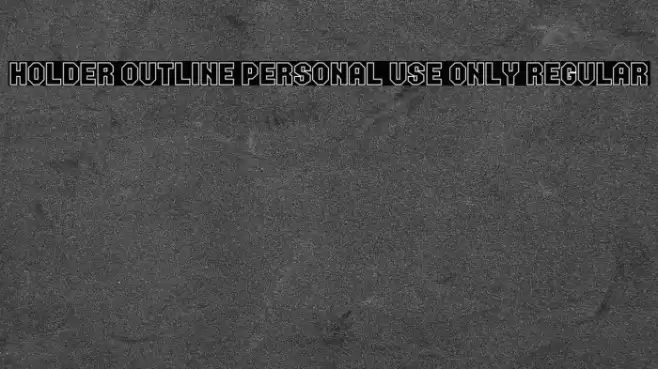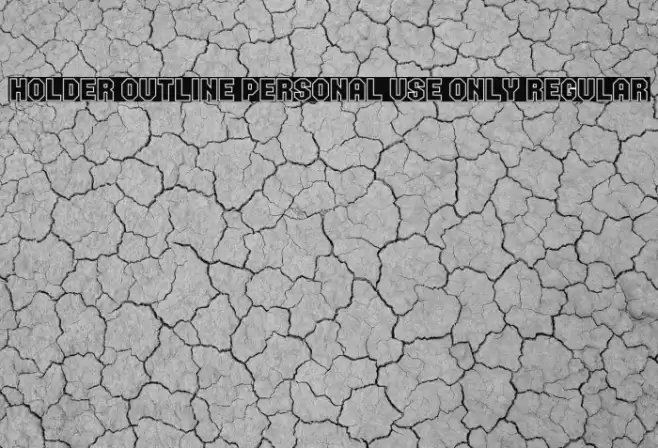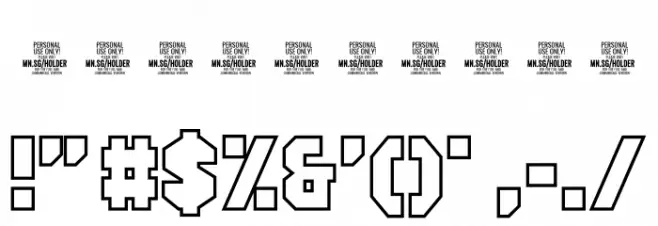
Holder Outline PERSONAL USE ONLY Regular Font
This font features a bold, geometric outline style that gives it a strong and impactful appearance. The characters are constructed with thick, uniform lines that form a hollow interior, creating a striking visual effect. Each letter is designed with sharp angles and clean edges, contributing to a modern and industrial aesthetic. The uppercase letters are consistent in height and width, providing a balanced and cohesive look. The font includes a full set of uppercase letters, numbers, and a variety of special characters, making it versatile for different design needs. Its unique outline style makes it stand out, ideal for projects that require a bold statement.
A bold, geometric outline font with a modern, industrial aesthetic from Uncategorized fonts.